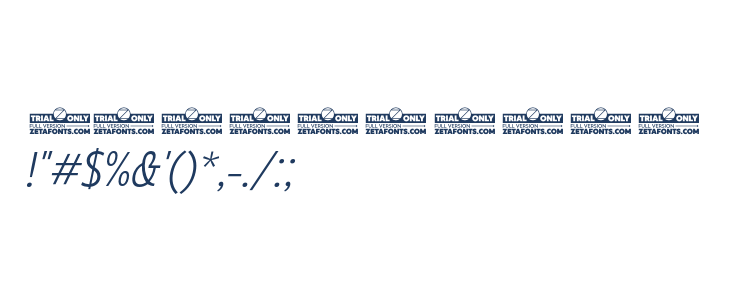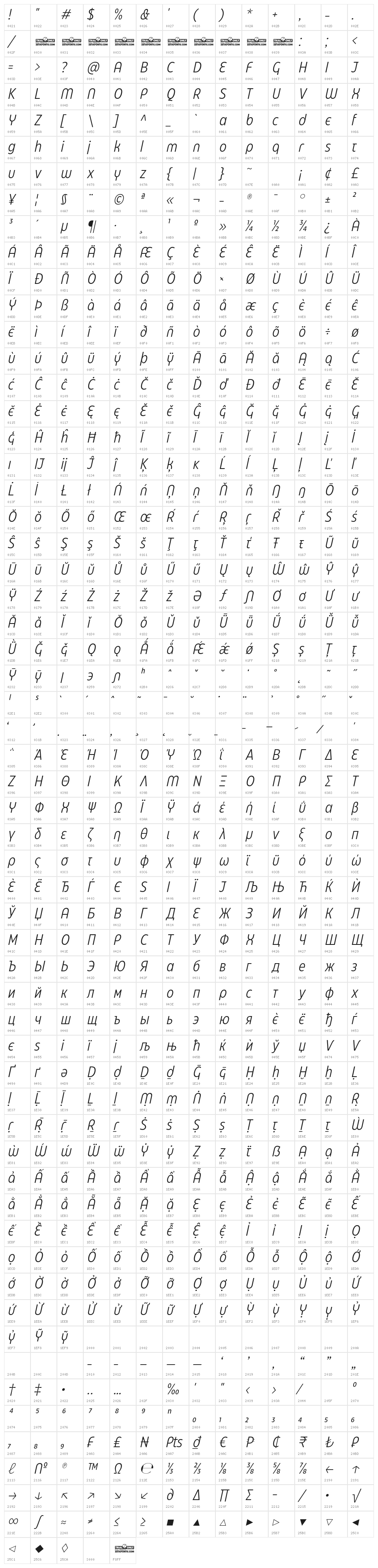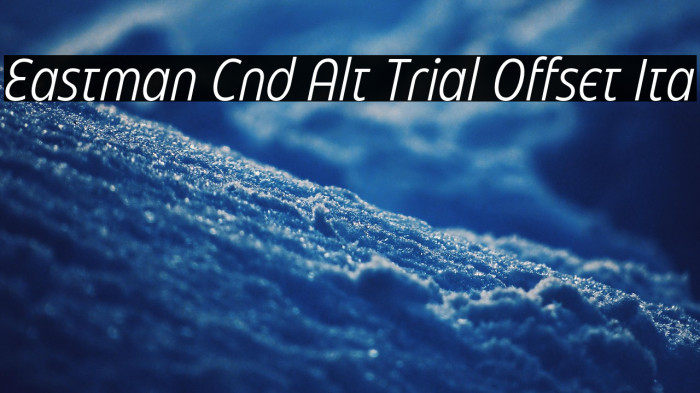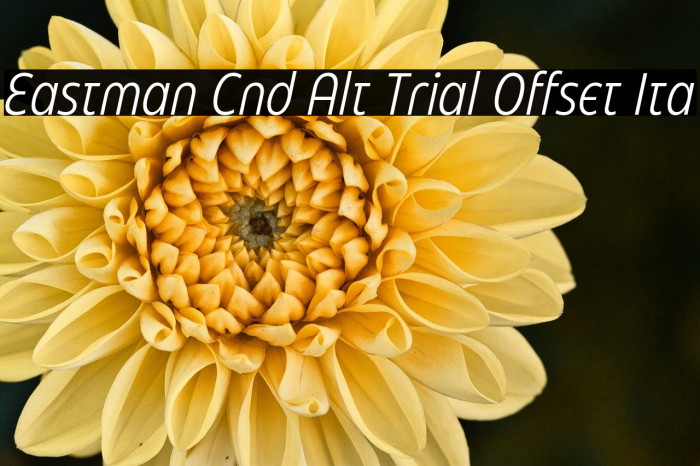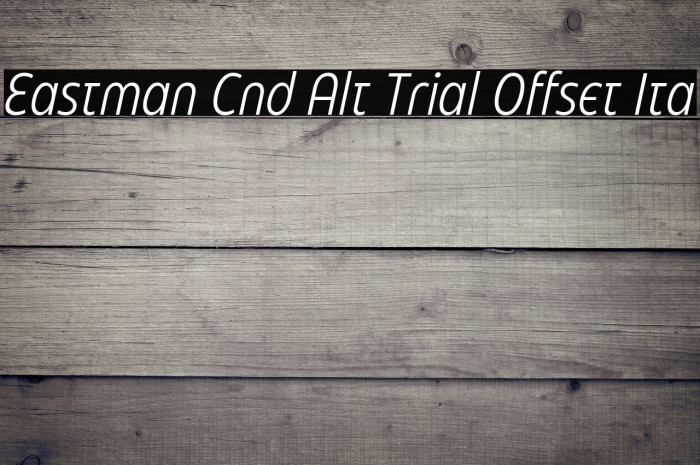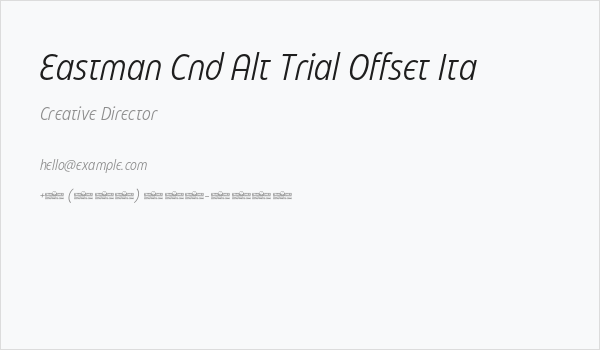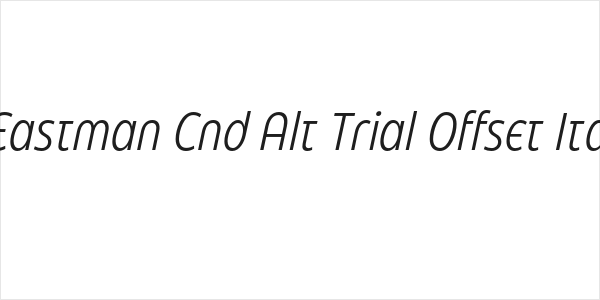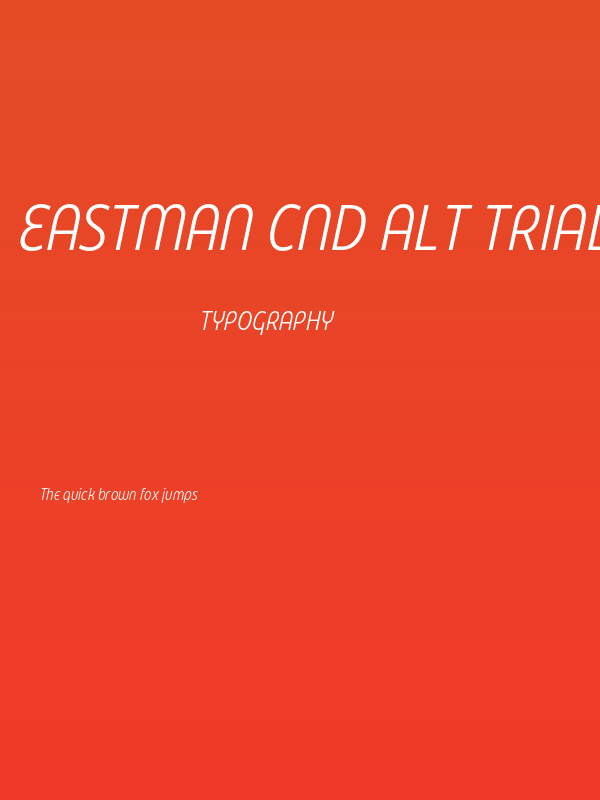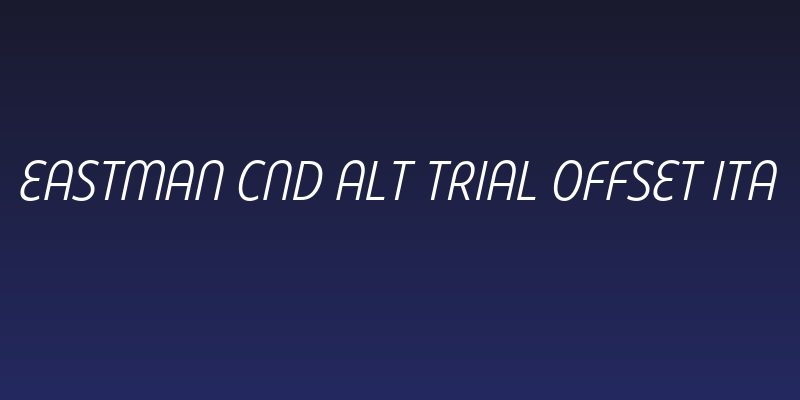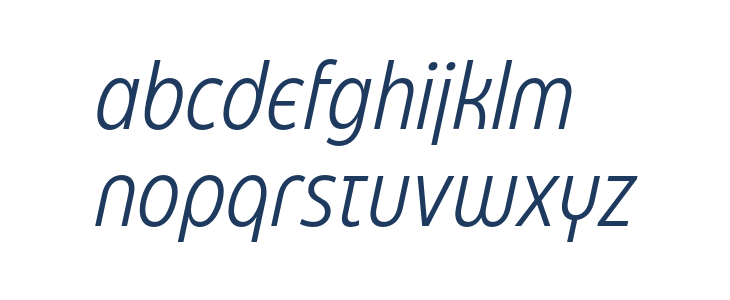
Eastman Cnd Alt Trial Offset Ita Font
Eastman Cnd Alt Trial Offset Ita Description
This font features a sleek and modern design with a condensed and slightly italicized style. The characters are elongated with smooth curves and a clean finish, giving it a contemporary and professional appearance. The uppercase and lowercase letters maintain a consistent flow, while the numerals and special characters complement the overall aesthetic. The font's design is versatile, making it suitable for a variety of applications where a modern and stylish look is desired.